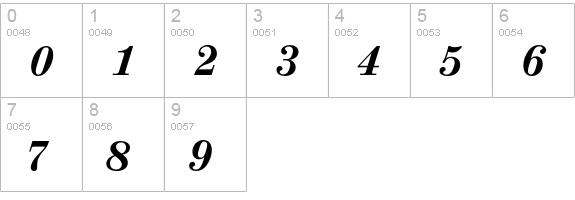
Valencia-BoldIta Font Details
Valencia-BoldIta is a stunning and bold italic font that exudes elegance and sophistication. This font is perfect for adding a touch of luxury and style to any design project. With its graceful curves and stylish angles, Valencia-BoldIta is sure to captivate and impress. What sets Valencia-BoldIta apart is not only its striking aesthetic but also its accessibility. This font is freely available to download at FontsMarket.com, making it easily accessible to designers, artists, and enthusiasts alike. Whether you are working on a professional project or simply want to add a unique flair to your personal creations, Valencia-BoldIta is the perfect choice. The versatility of Valencia-BoldIta allows it to be used across various design mediums. From logos and branding to posters and invitations, this font adds a touch of sophistication to any visual composition. Its bold and italic nature creates a sense of dynamism and visual interest, making it stand out from the crowd. Valencia-BoldIta is meticulously crafted with attention to detail, ensuring that each character is perfectly balanced and harmonious. The smooth curves and sharp edges create a harmonious blend of elegance and modernity, making it a timeless font that can be used in a wide range of design styles. Whether you are designing for print or web, Valencia-BoldIta guarantees legibility and readability. Its well-defined letterforms ensure that each word is clear and easy to read, even at smaller sizes. This makes it a versatile choice for various design applications, such as headlines, body text, and captions. In conclusion, Valencia-BoldIta is a free font that combines elegance, style, and accessibility. Its bold and italic nature, along with its impeccable craftsmanship, make it a must-have for any designer's toolkit. Download Valencia-BoldIta today from FontsMarket.com and elevate your designs to new heights of sophistication and beauty.